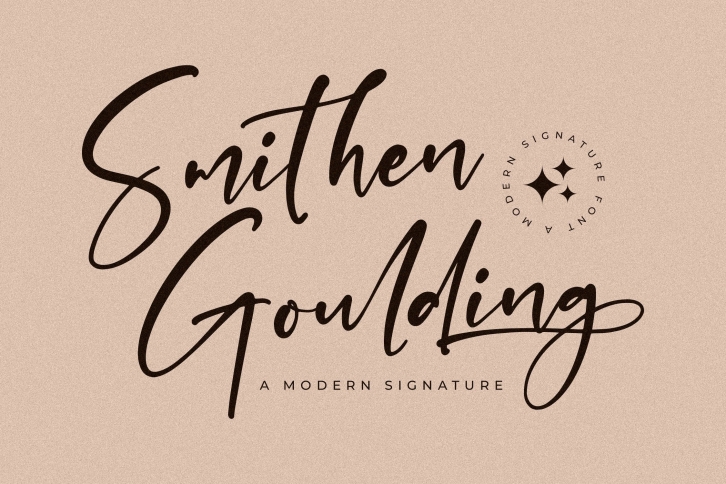
Smithen Goulding – Modern Signature , from Glorytype Studio, suitable for any projects such as: logos, branding projects, homeware designs, product packaging, mugs, quotes, posters, shopping bags, t-shirts, book covers, name card, invitation cards, greeting cards, label, photography, watermark, special events, and all your other lovely projects that need a beautiful script taste.